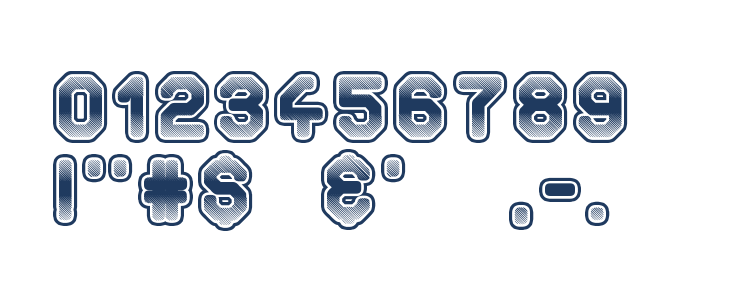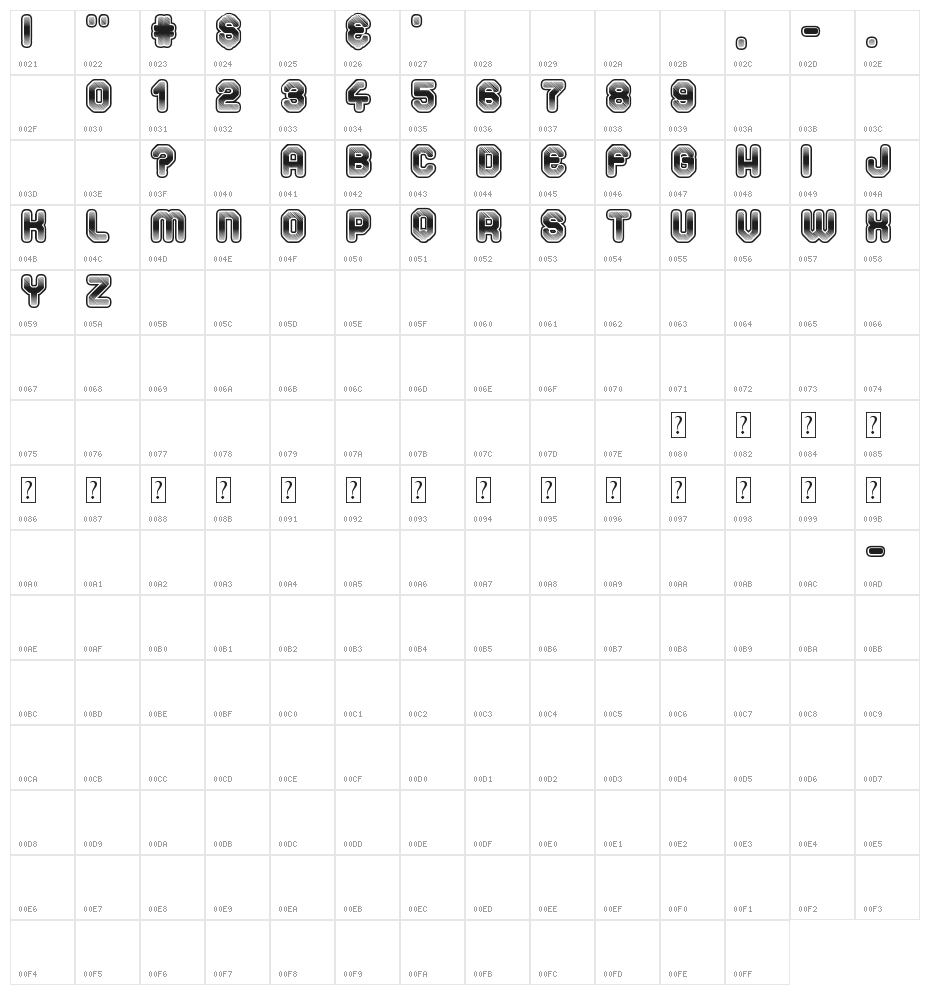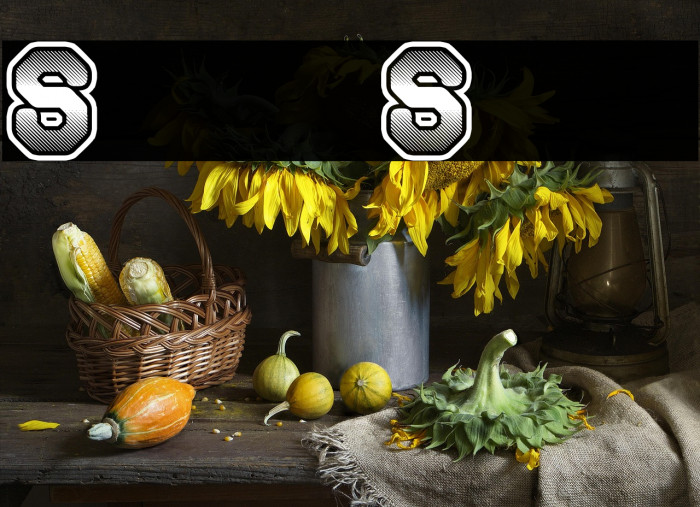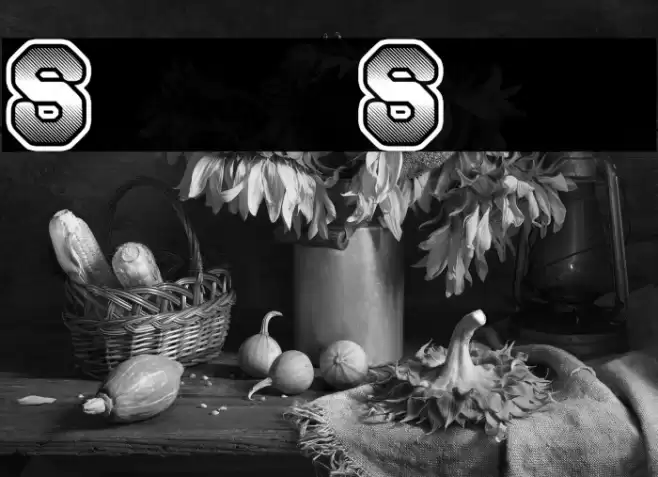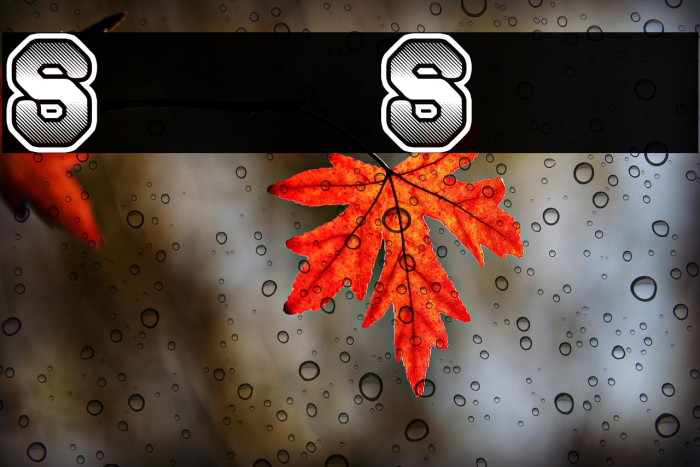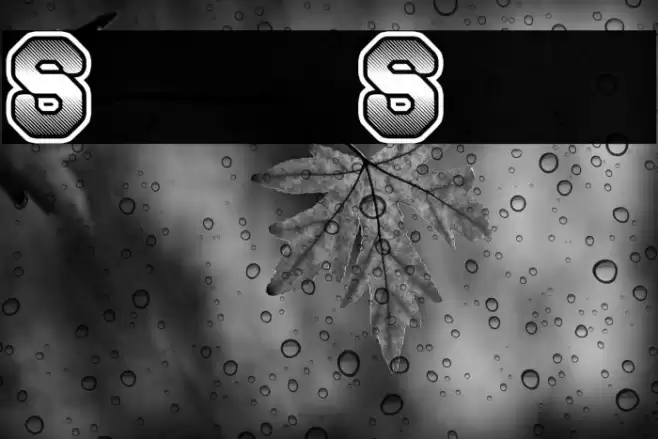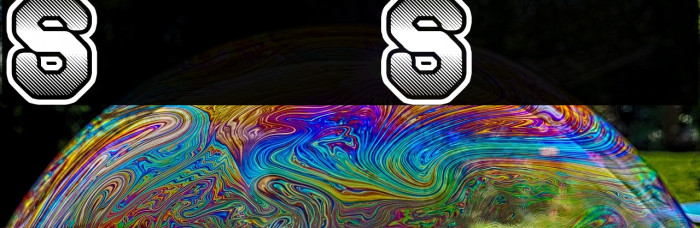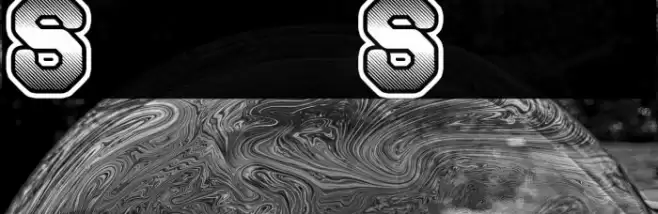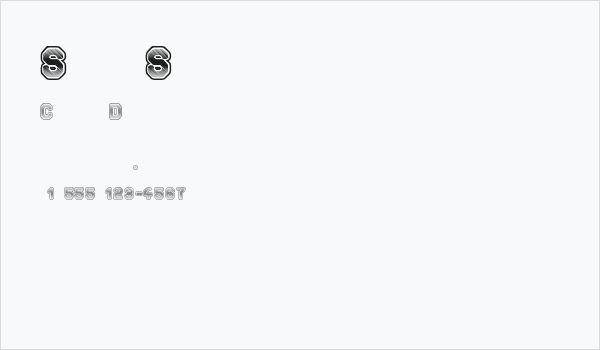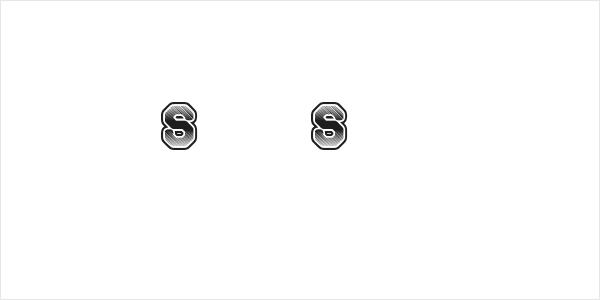
Space Sport Font
Space Sport Description
This font features a bold, futuristic design with a three-dimensional effect that gives it a sporty and dynamic appearance. The characters are outlined with a thick border, creating a sense of depth and movement. Each letter and number is crafted with a consistent geometric style, emphasizing rounded edges and uniformity. The font's unique shading and gradient effects enhance its modern and energetic feel, making it ideal for projects that require a strong visual impact. Its distinct style is perfect for capturing attention and conveying a sense of speed and innovation.